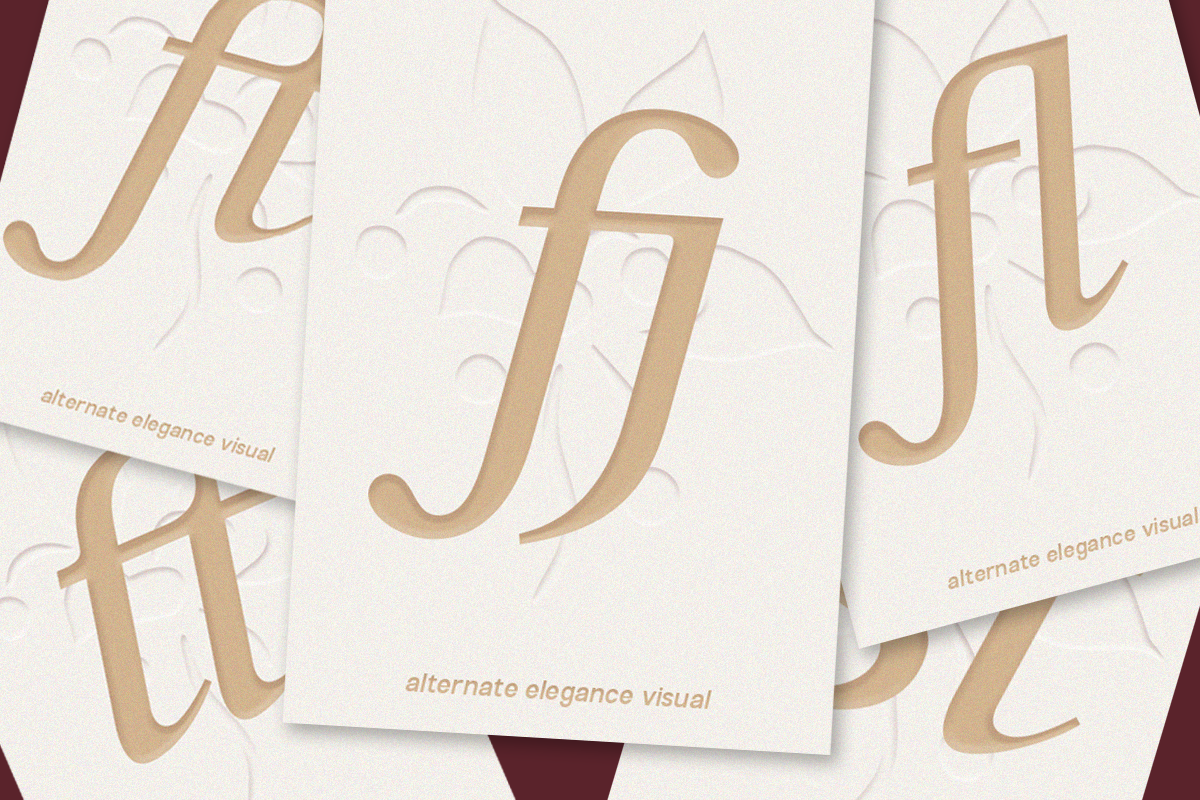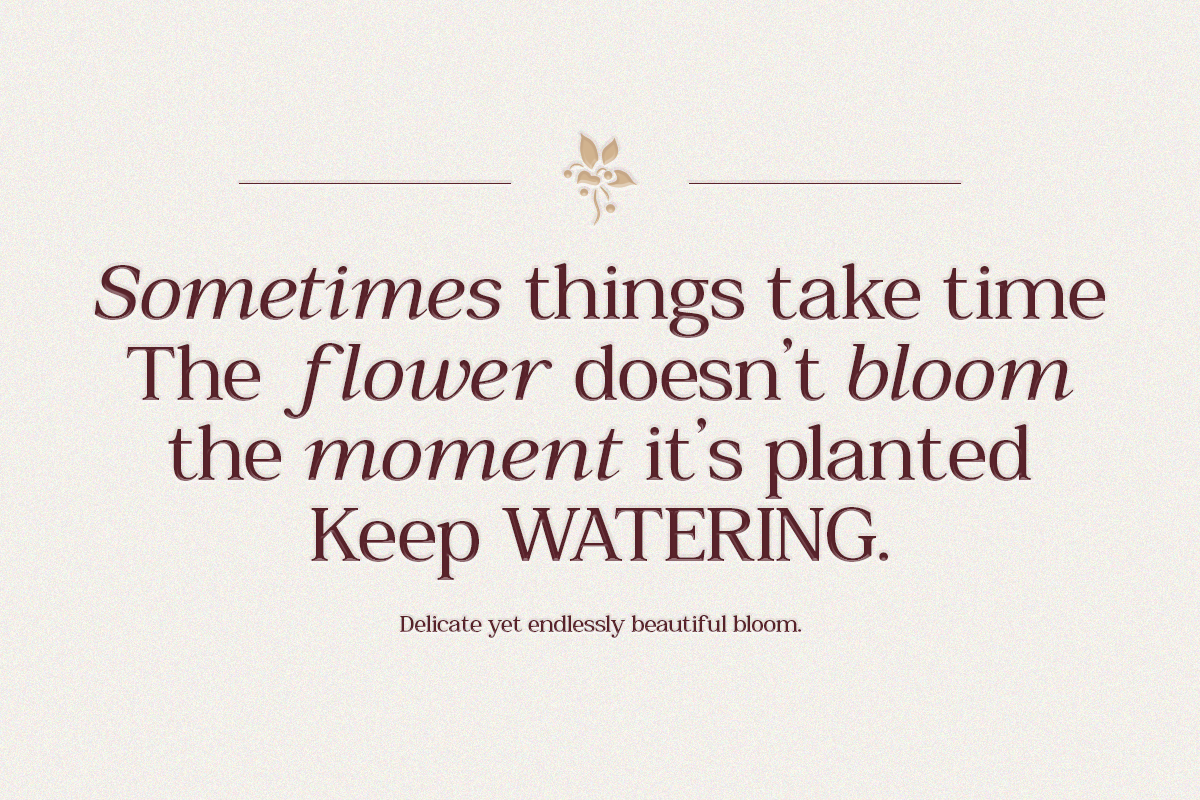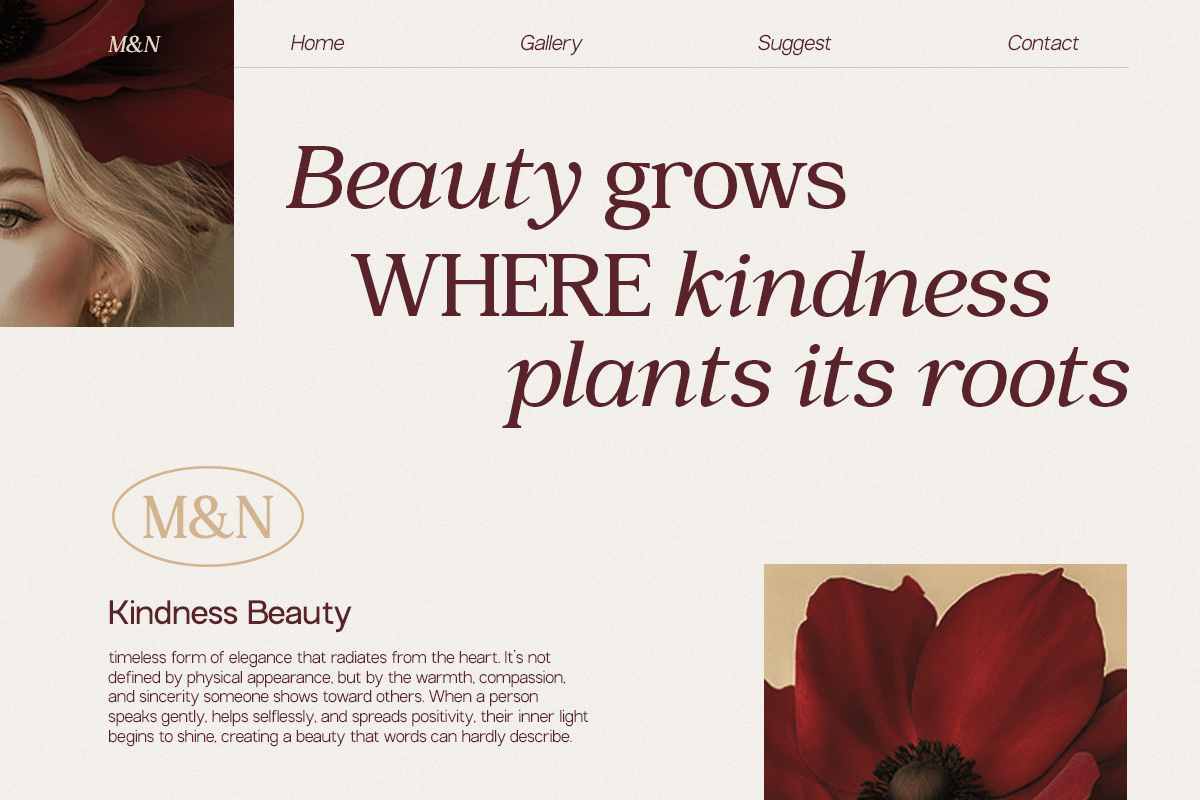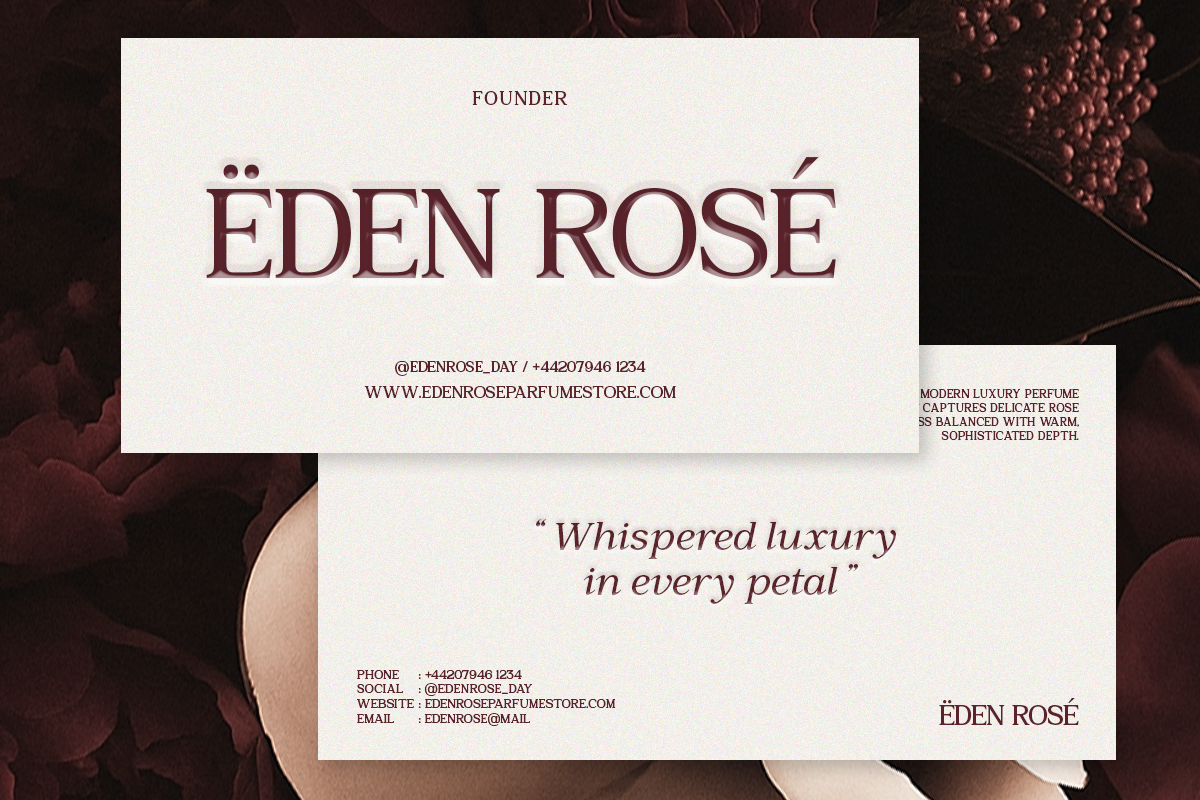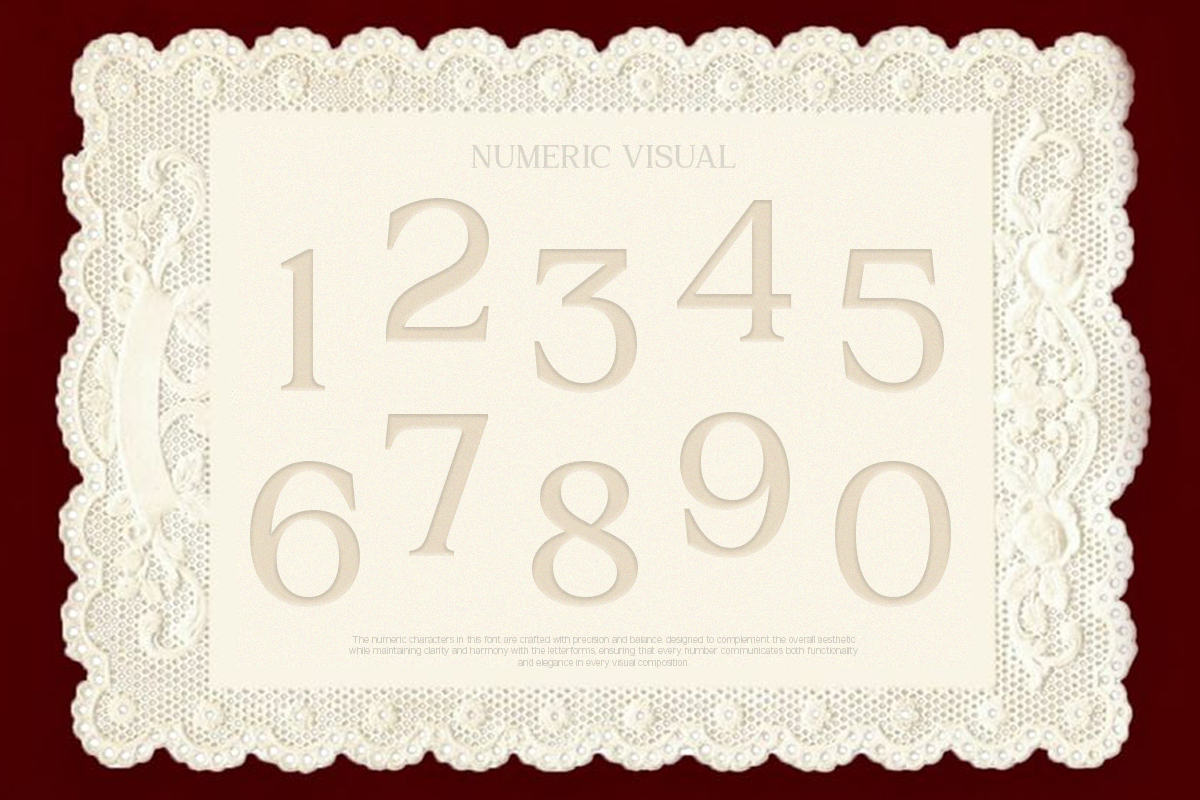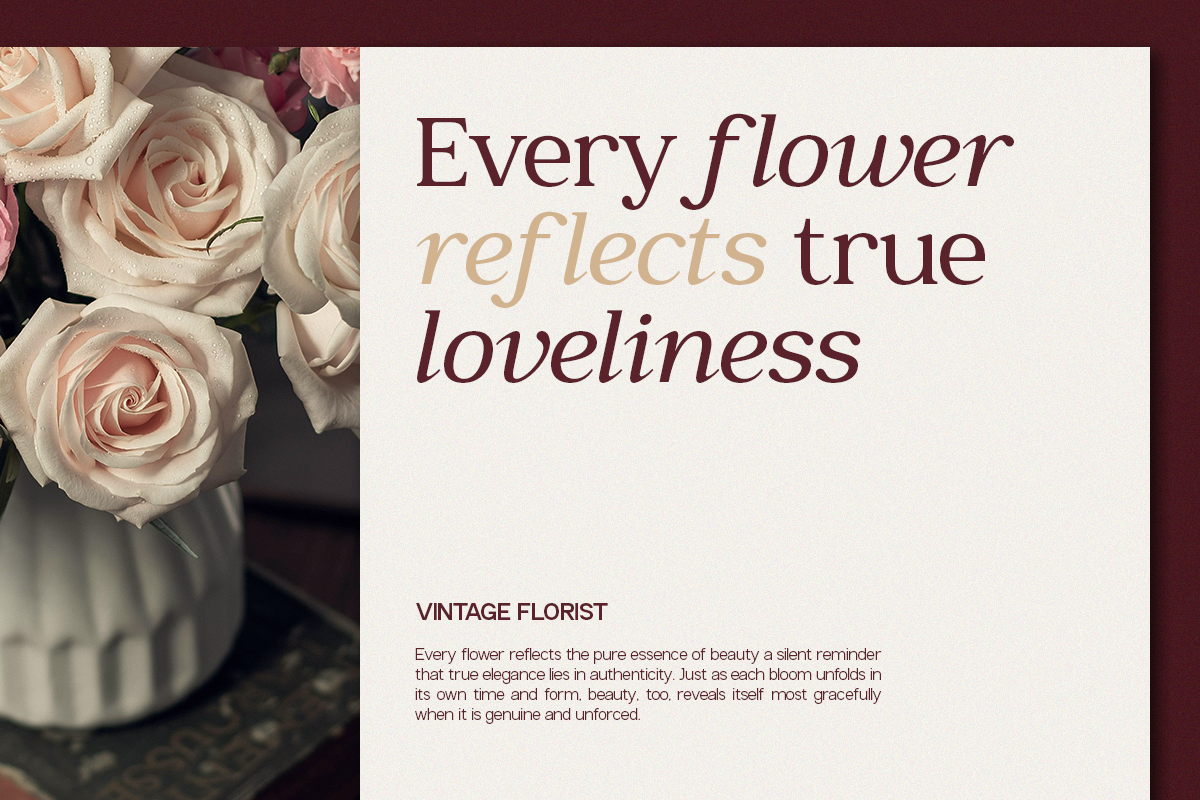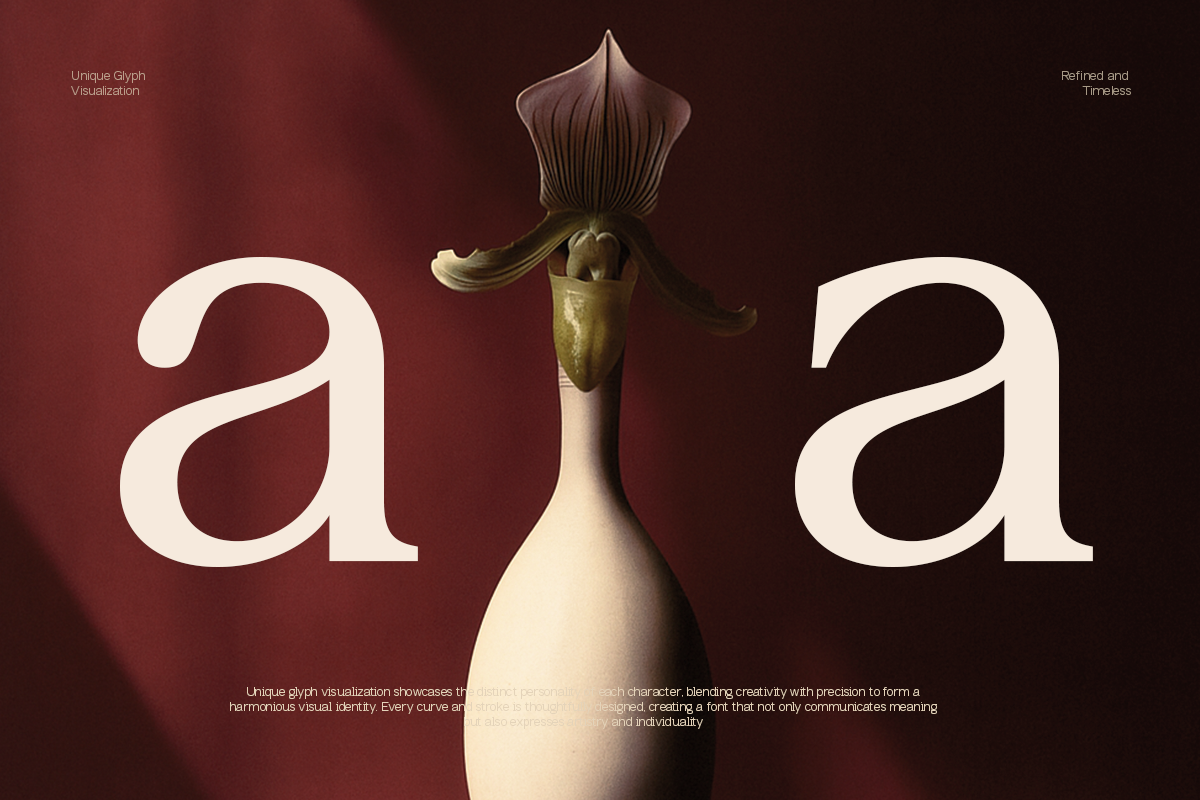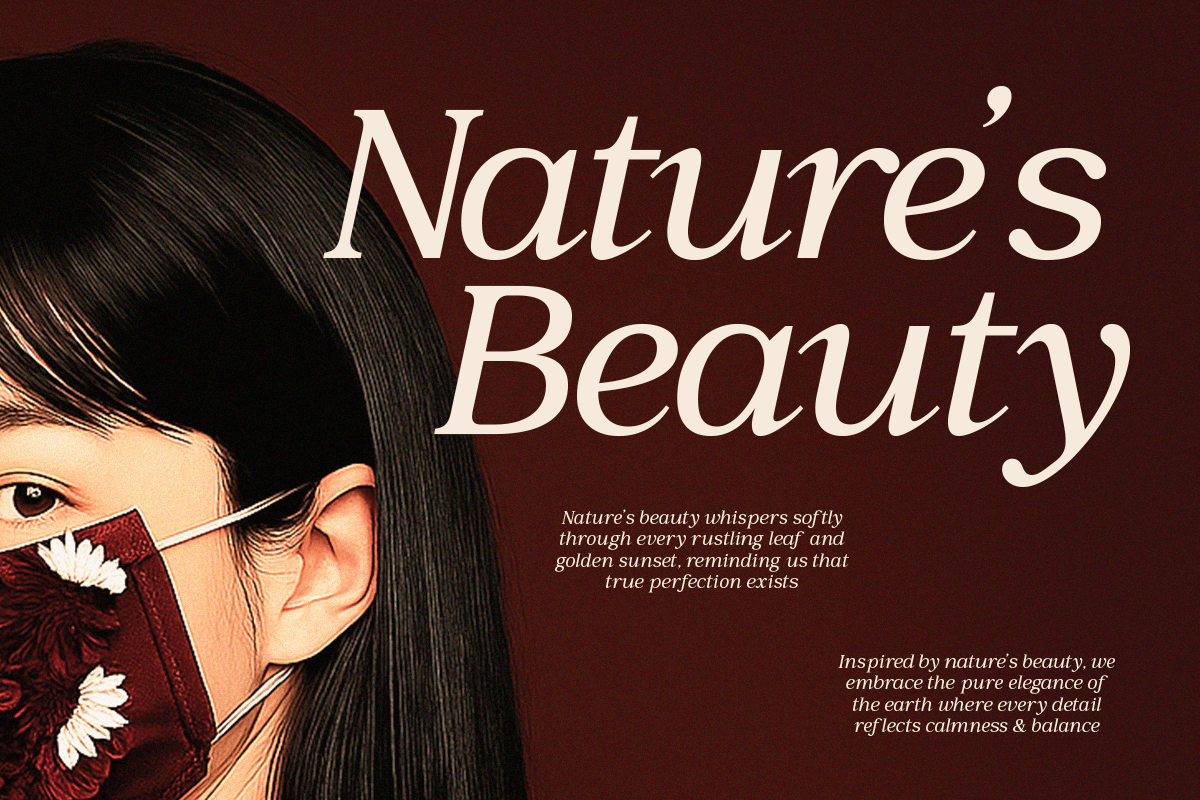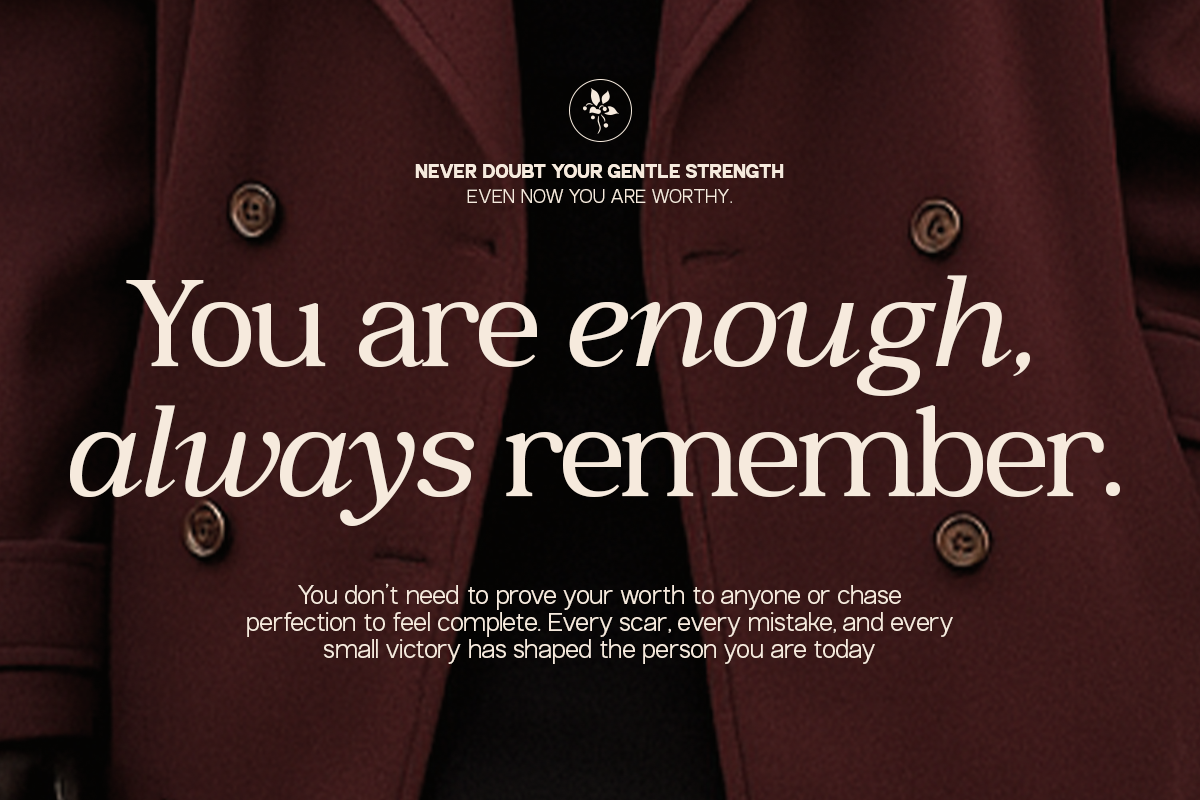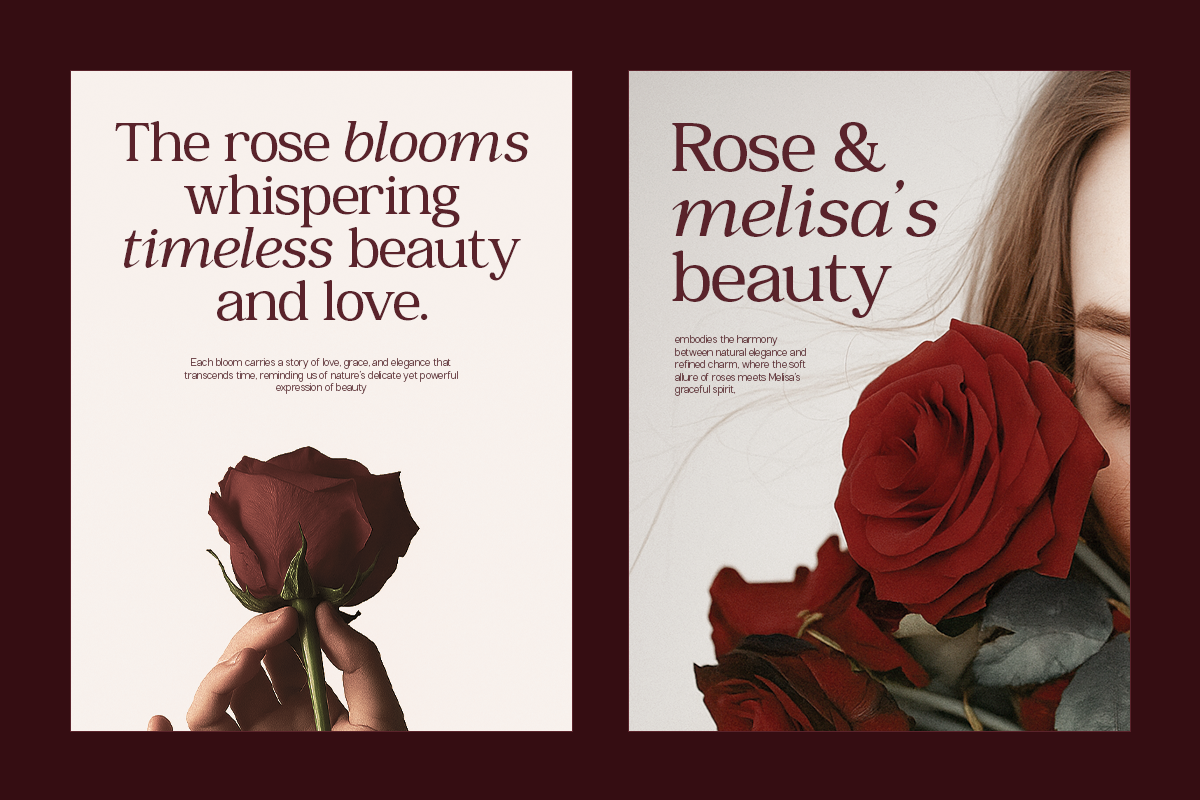
GC Romans Flower - Elegant Serif
GC Romans Flower – Elegant Serif is a refined serif typeface that blends classic sophistication with a modern, graceful touch. Crafted with confident letterforms, smooth curves, and elegant detailing, this font delivers a luxurious character with a timeless aesthetic. It is perfect for premium branding, editorials, packaging, wedding designs, and any visual project that demands beauty and high-end elegance.
Balanced proportions and refined serif construction provide both sophistication and readability, making GC Romans Flower ideal for bold headings as well as delicate supporting text. Whether used for display or editorial purposes, it brings a polished and distinguished presence to your typography.
- Elegant Serif Construction
Bring a touch of luxury, grace, and timeless refinement to your design projects with GC Romans Flower – Elegant Serif.